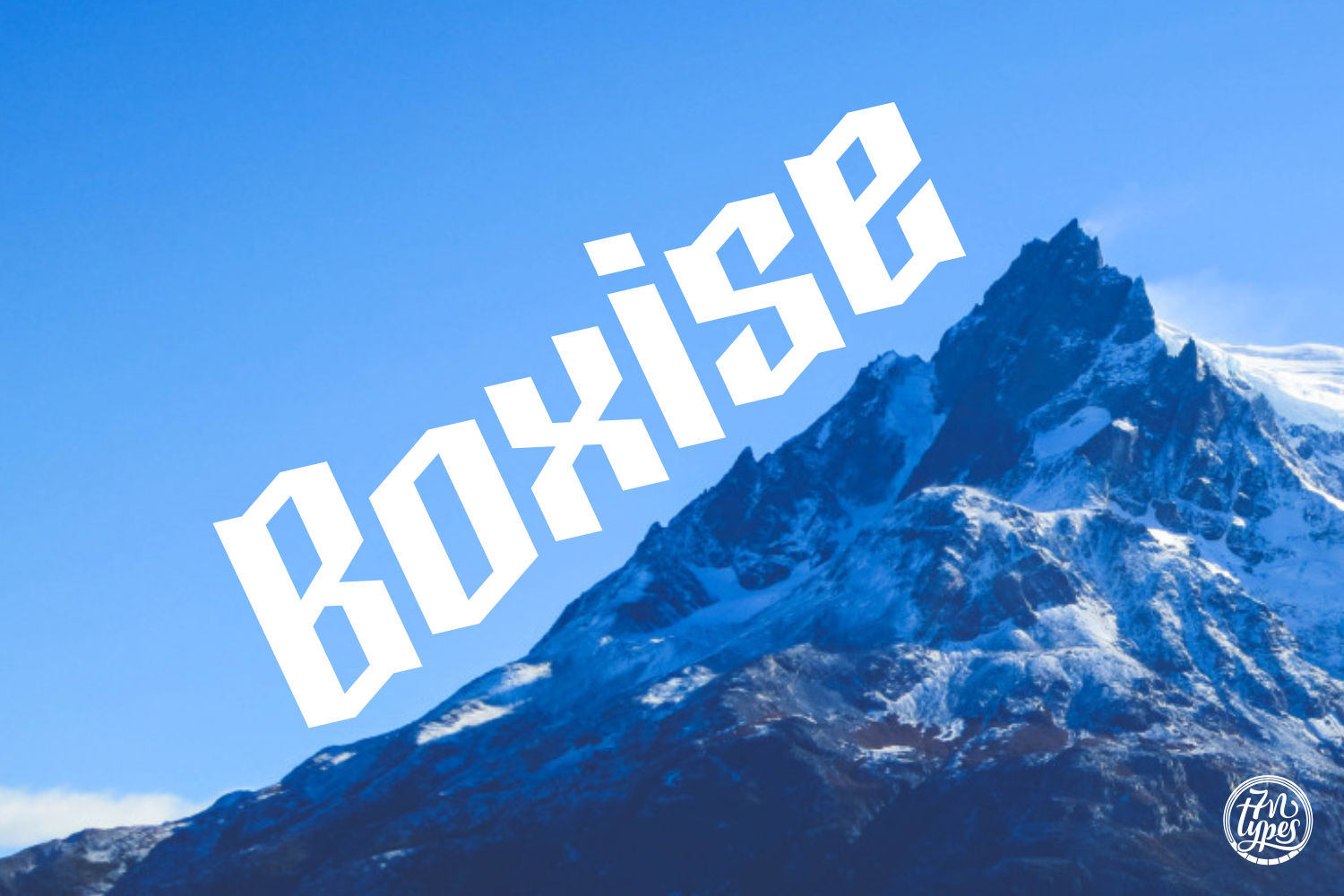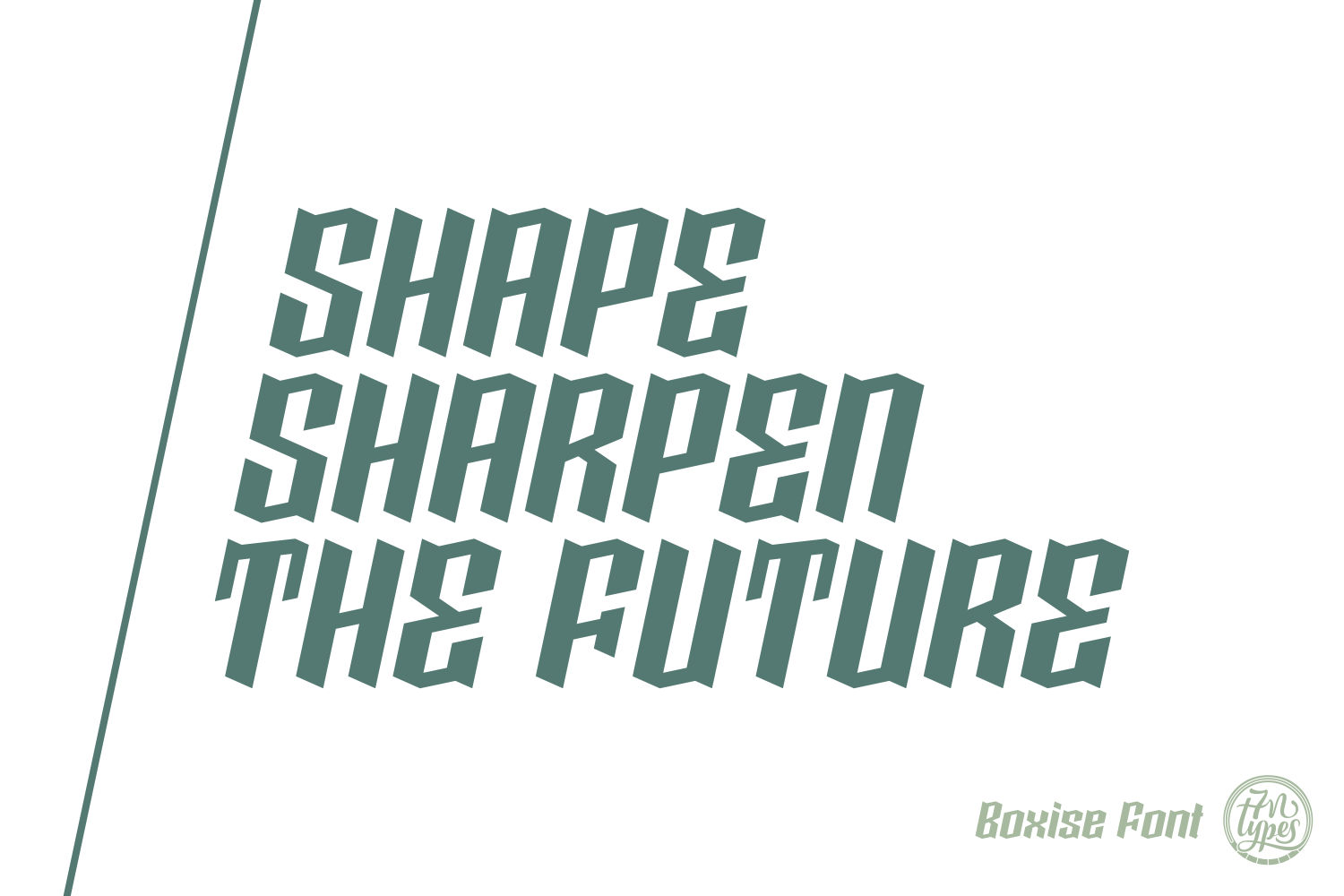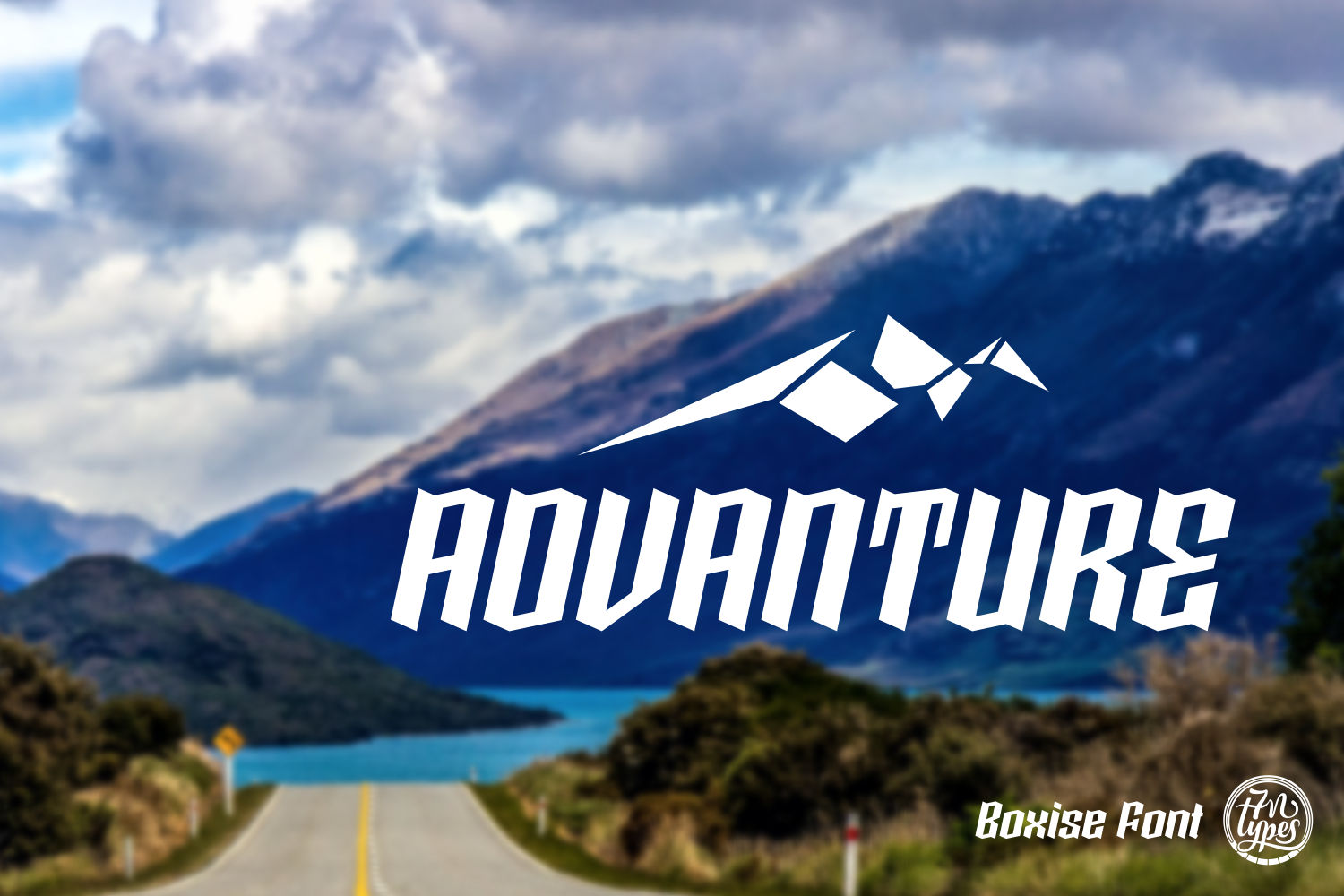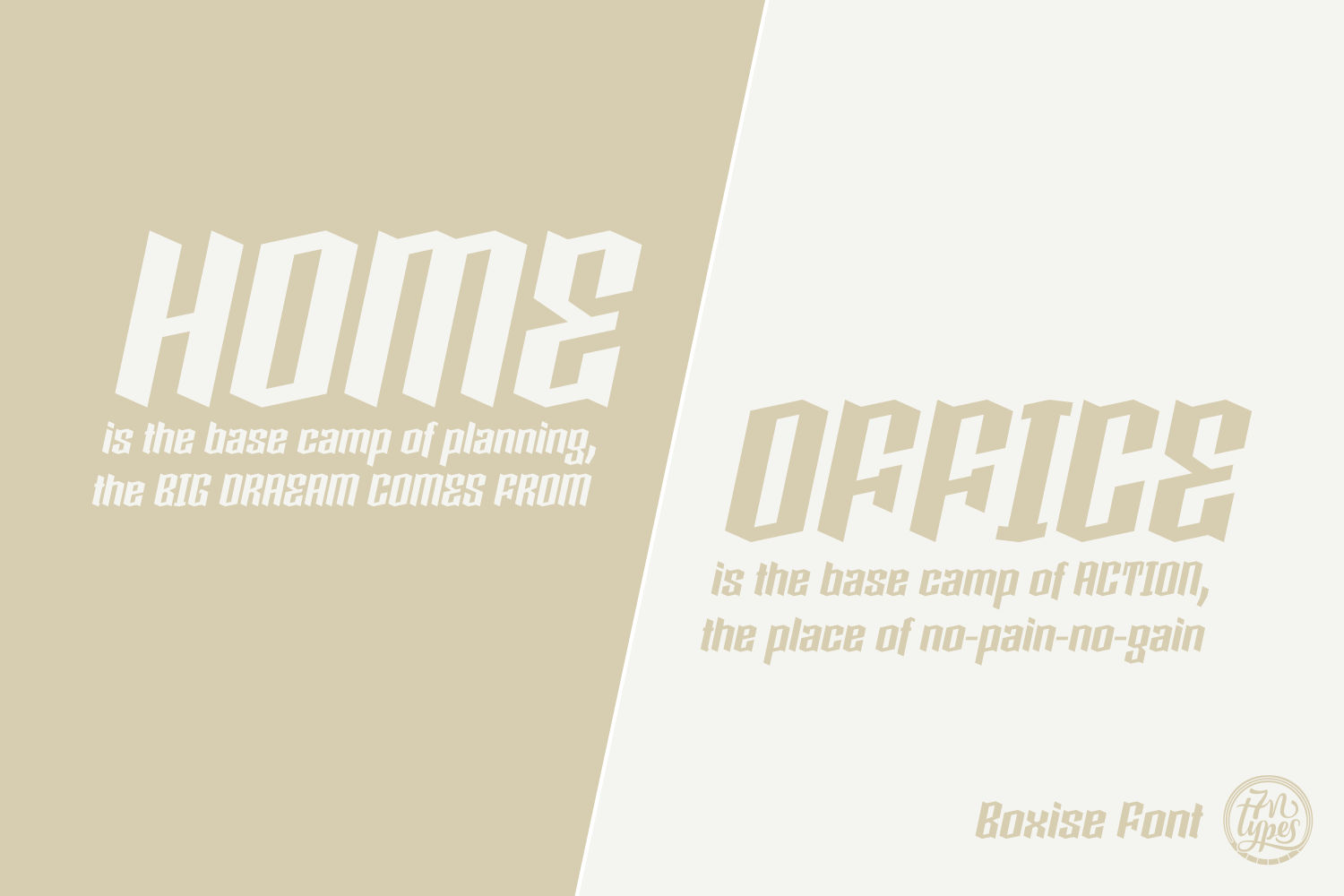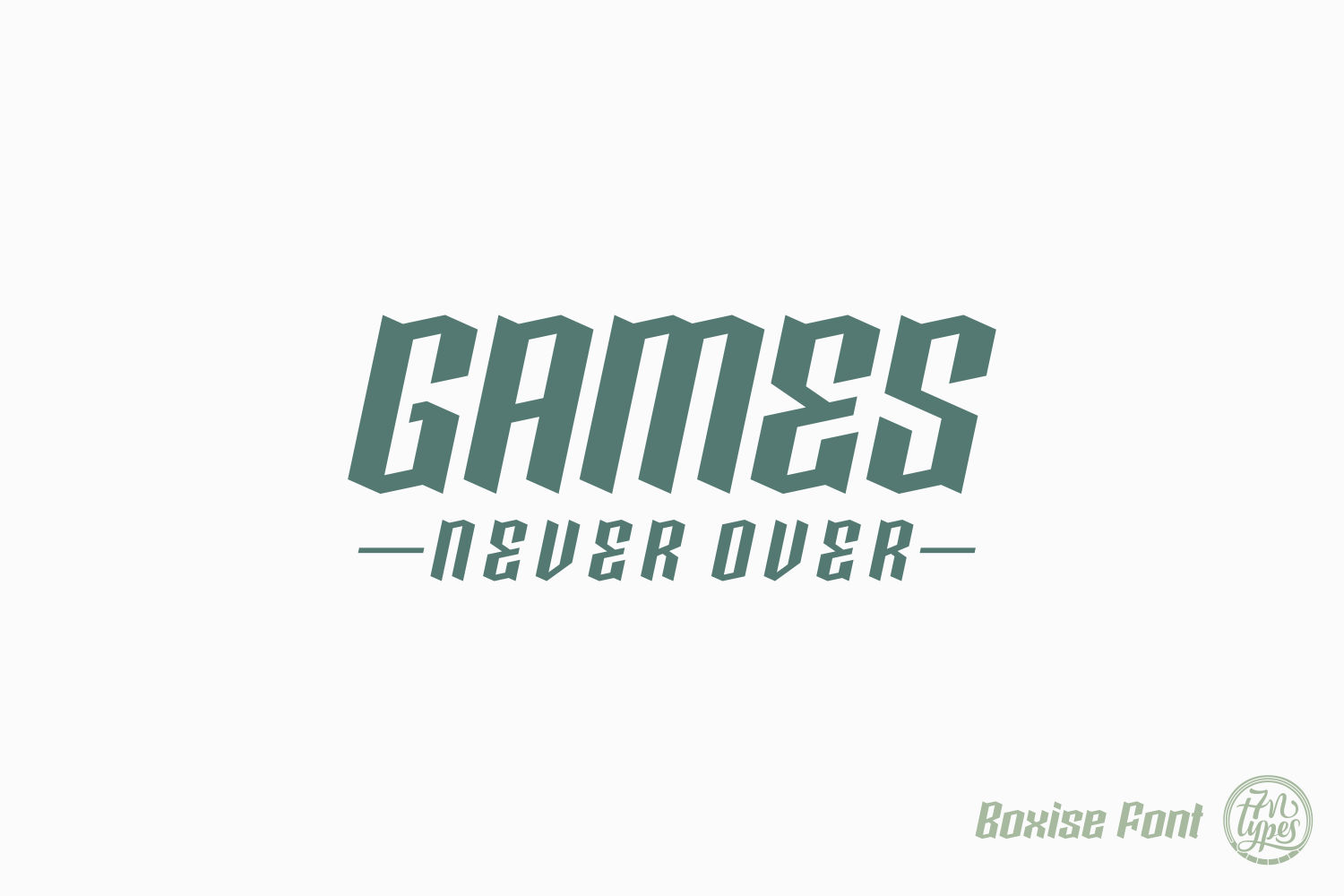
About Boxise Font
Boxise, a characteristic type created by Situjuh Nazara.
This blackletter style font is surprising legible. This makes the font great for standard blackletter usage like headings, logos, posters, signs; but it also makes it suitable for apparel, cards & invites, menu’s and more.